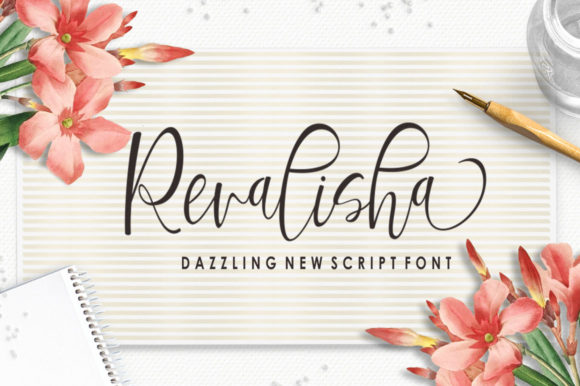
Revalisha Font
Introducing Revalisha Font: The Ultimate Script Font for Creative Expression!
Dive into the world of Revalisha, an ultra-modern script font that captivates with its chic style, trendy lines, and captivating flow. Each character is precisely crafted to present a flawless finish, ensuring your designs stand out from the crowd. With its expressive and vibrant personality, Revalisha is the perfect choice for adding a touch of elegance and sophistication to your projects.
Unleash your creativity and embrace the possibilities! Revalisha's versatile nature allows you to effortlessly create stunning logos, eye-catching headers, unique branding elements, and captivating social media graphics that resonate with your audience and leave a lasting impression. The beautiful swashes add a touch of whimsy and charm, making your designs truly remarkable.
Get ready to experience the Revalisha magic! Its user-friendly format and extensive character set, including multilingual support, make it accessible and easy to use, even for beginners. Whether you're a seasoned designer or just starting out, Revalisha promises to elevate your work to new heights, allowing your designs to shine like never before.